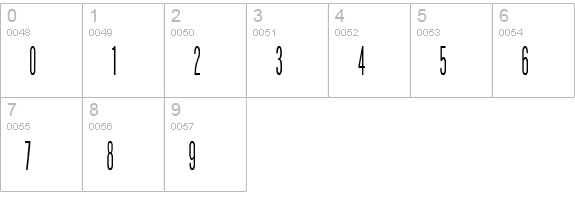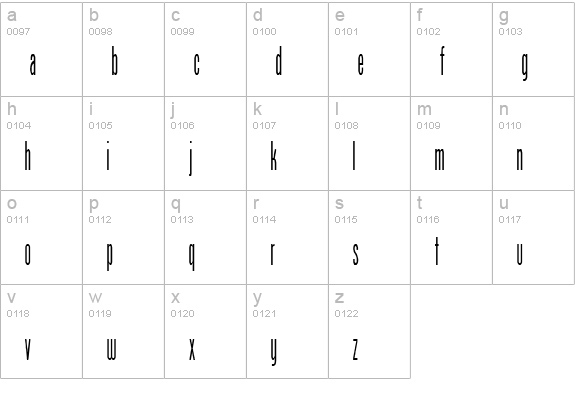
Borzoi Medium is a balanced, medium-weight variant in the Borzoi typeface family \xE2\x80\x94 well suited to sub-headlines, navigation, and balanced editorial work.
Borzoi Medium font is a stylish and elegant typeface that exudes sophistication and class. Its sleek and modern design makes it perfect for a wide range of projects, from branding to editorial design. With its tall and slender letterforms, Borzoi Medium font adds a touch of refinement to any text or headline. What makes Borzoi Medium font even more appealing is that it is available for free download at FontsMarket.com. This means you can easily access this high-quality font without having to spend a penny. Whether you're a designer working on a client project or a student looking to enhance your presentations, Borzoi Medium font offers a premium look without the premium price tag. Download Borzoi Medium font today and elevate your design projects with its sophisticated charm and versatility.